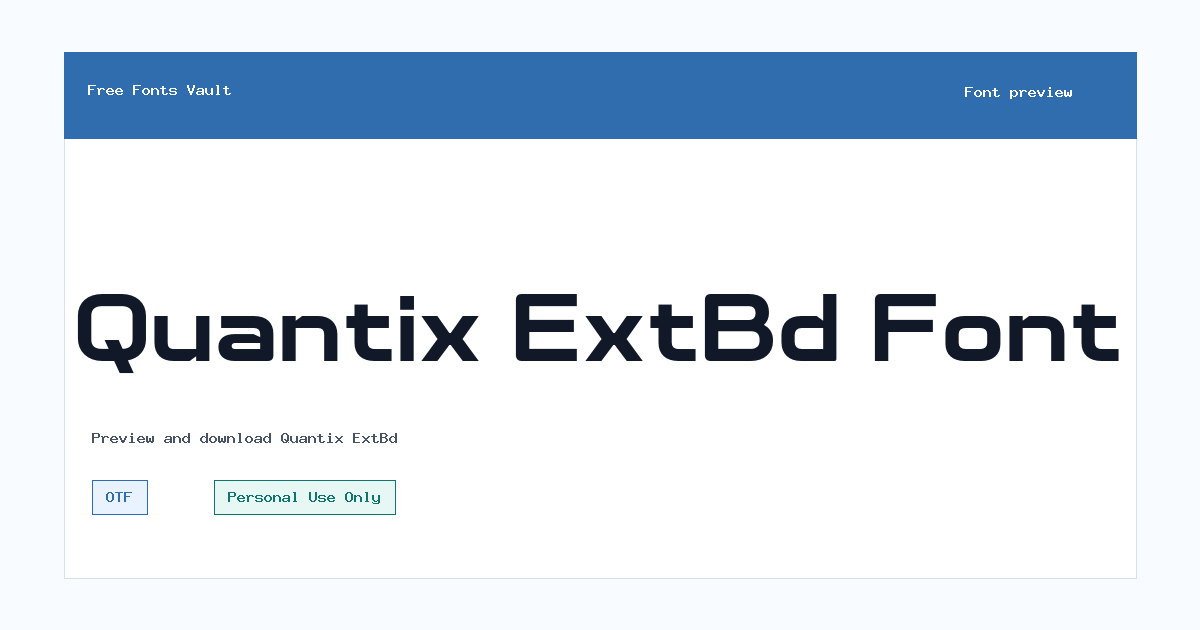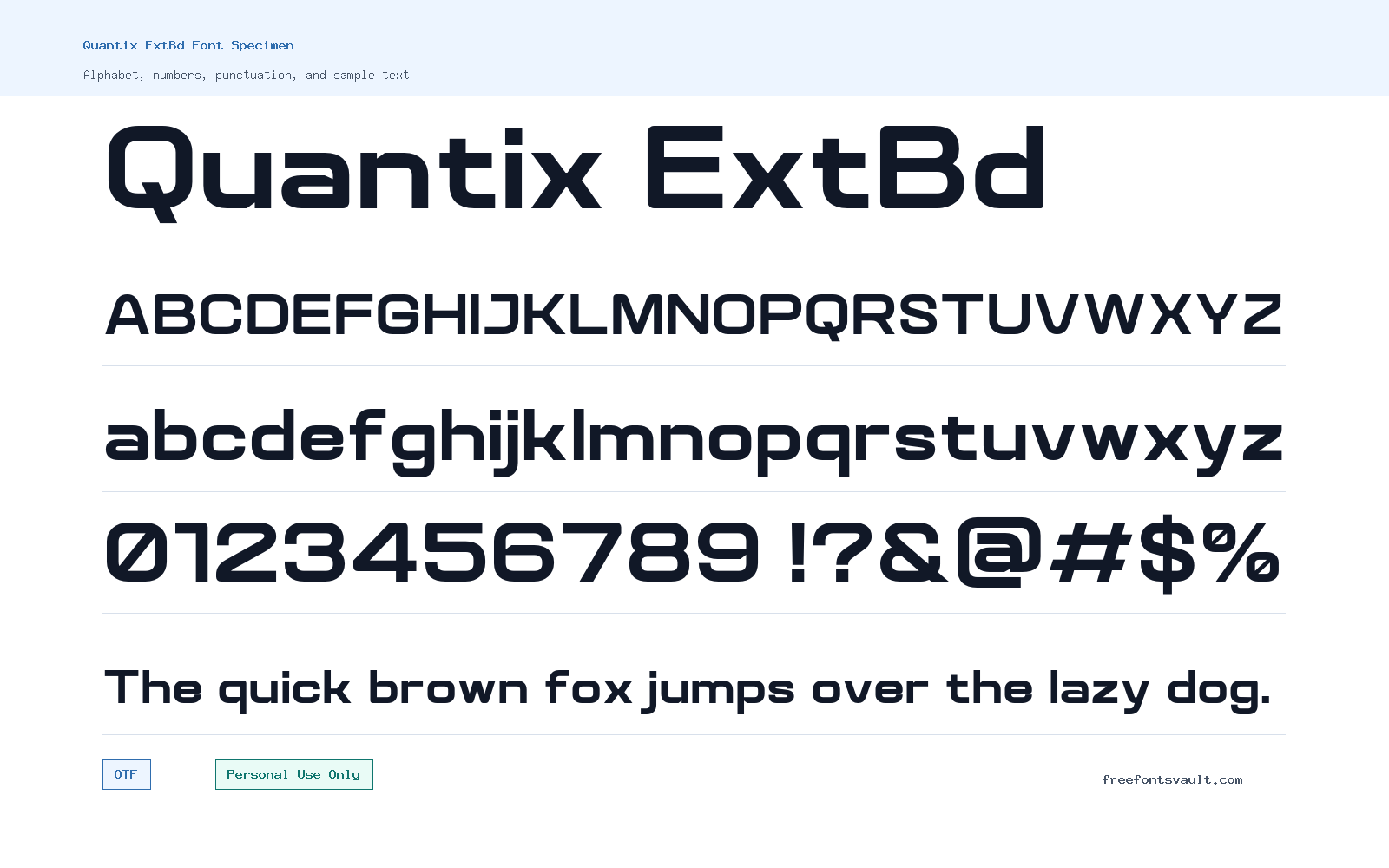
Quantix ExtBd
- Designer Habib Alfatul Akbar
- Foundry Arterfak Project
Quantix ExtBd is a heavy sans serif display font with a strong, clean presence. Its extra-bold weight makes it a practical choice when you need short words, names, or headlines to stand out quickly.
About Quantix ExtBd
Quantix ExtBd works best as a display face rather than a long-reading text font. The OTF file is marked with a 700 weight, so the letters are built for impact: thick strokes, clear shapes, and a compact visual rhythm that can hold attention in a title, poster line, logo draft, or social graphic. Because the style is bold and direct, it suits designs where the type needs to carry the first impression without relying on decorative effects. Try it for brand-name explorations, gaming-style titles, streetwear mockups, event posters, thumbnail text, music artwork, and bold web hero sections.
For best results, test Quantix ExtBd with short phrases before using it in a finished layout. Extra-bold fonts can become crowded when tracking is too tight, especially in all caps or at smaller sizes. Give the letters enough space, keep the line length short, and pair it with a quieter font for body copy. A simple sans serif or neutral serif can help balance the weight of Quantix ExtBd in layouts that need both display type and readable information. If you are using it for logo work, test the name at several sizes and in black-and-white first, then check whether the license fits the final use.
- Extra-bold sans serif style with strong display impact
- 700 font weight for heavy headlines, titles, and short branding text
- Normal upright style, useful for clean poster and logo compositions
- Best suited to short text rather than long paragraphs
- Logo drafts and wordmark experiments
- Poster headlines and event titles
- Bold website hero headings and landing-page mockups
- Social media graphics and YouTube thumbnail text
- Packaging concepts, apparel mockups, and label designs
- Music covers, gaming graphics, and modern display layouts
Use Quantix ExtBd where the type needs to be large and immediate. It is better for a few words than for body text. In posters, keep supporting information in a lighter companion font so the main title stays dominant. In logo or branding tests, review the spacing carefully, because extra-bold letters can look too tight when the word is short or uses repeated vertical strokes. For web mockups, try it in hero headings, buttons, or campaign banners, but avoid using it for paragraphs or dense navigation. Always confirm the license before using the font in any commercial design.
What kind of font is Quantix ExtBd?
Quantix ExtBd is an extra-bold sans serif display font. It is designed for strong visual impact in short text settings such as titles, logos, and posters.
Is Quantix ExtBd good for body text?
It is not the best choice for long paragraphs. Its heavy weight works better for short display text, while a simpler lighter font should handle body copy.
What fonts pair well with Quantix ExtBd?
Pair it with a clean, lighter sans serif for a modern layout, or with a restrained serif if you want contrast. Keep the companion font simple so it does not compete with the heavy headline.